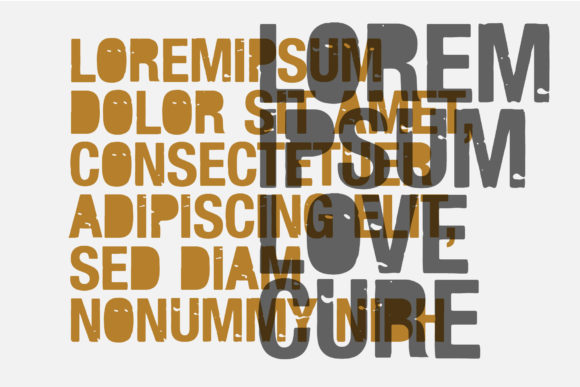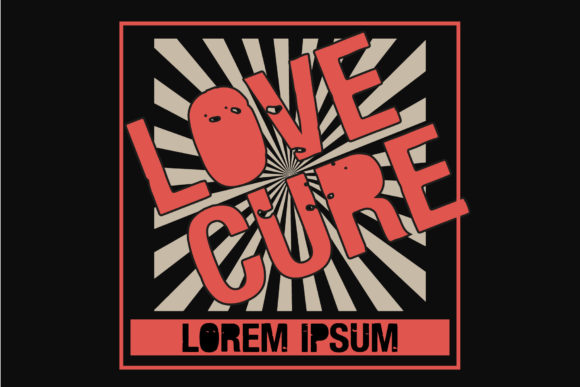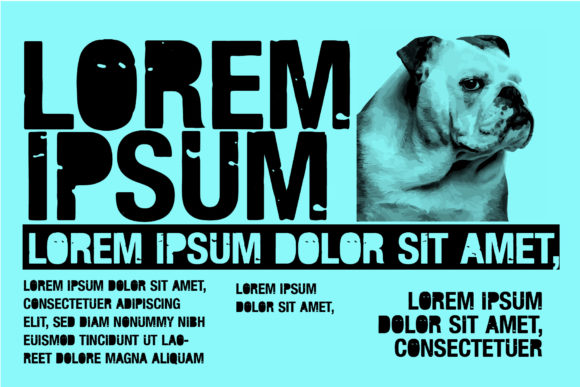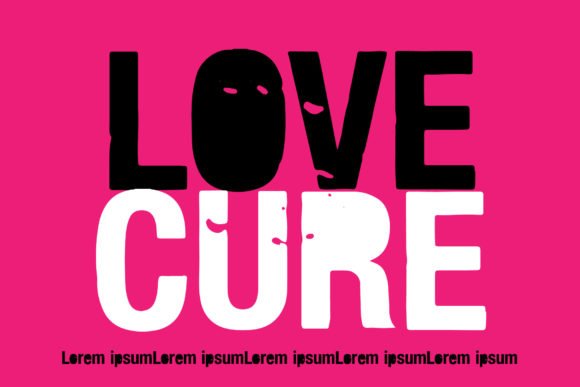
Introduction to Lovecure Font
Lovecure is a great font.
This fantastic display font is best suited for headlines of all sizes, as well as for blocks of text that have both maximum and minimum variations Whether it’s for web, print, moving images or anything else – Lovecure will look spectacular.
Lovecure Font offers exceptional quality and versatility, making it a valuable addition to your design toolkit. Whether you’re creating for personal projects or commercial use, Lovecure Font delivers professional results.